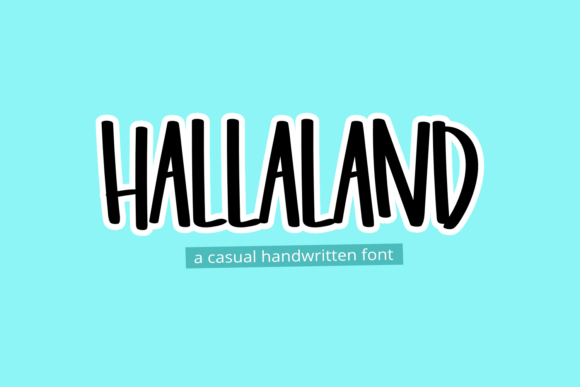
Unleash your creativity with Hallaland Font - the enchanting sans serif font that adds a touch of flair and elegance to all your designs. This remarkable font family, brought to you by Creative Zone, captures the spirit of celebration and romance, making it the perfect choice for crafting stunning invitations, wedding stationery, and any project that calls for a joyful and sophisticated touch.
Immerse yourself in the world of Hallaland Font and discover its versatility and charm. This meticulously crafted font family features a range of weights and styles, allowing you to effortlessly create designs that resonate with your unique vision. From delicate hairlines to bold statements, Hallaland Font adapts seamlessly to your creative needs, offering endless possibilities for expression.
With Hallaland Font, you'll unlock a world of creativity, transforming ordinary designs into captivating masterpieces. Its playful and stylish nature brings a touch of whimsy and joy to any project, while its simplicity ensures readability and clarity. Whether you're crafting invitations for a special occasion, designing elegant wedding stationery, or creating marketing materials that demand attention, Hallaland Font is your perfect companion.
Experience the magic of Hallaland Font and elevate your designs to new heights. Let its playful curves and elegant lines add a touch of enchantment to your creative endeavors. Unleash your imagination and embark on a journey of artistic expression, knowing that Hallaland Font will be your faithful companion, guiding you towards stunning and memorable designs.